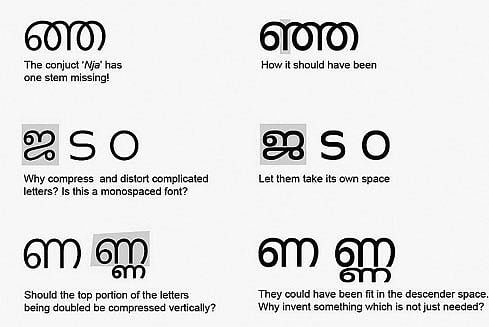
Language designers not at all 'Font' of 'Distorted' nirmala
Malayalam computing enthusiasts were upbeat when Nirmala, a new font, was announced with the Windows 8 OS. Users of the language expected it to be better than its predecessor Karthika, which many felt was unaesthetic.
But unfortunately, what they got was  a ‘distorted font’, which according to a designer, did not even “abide by the basic typographic rules”. One conjuct even has a missing stem. Some words written using the font therefore appear compressed and distorted. Nirmala is the default Malayalam font in the Operating System as Times New Roman for English.
If any document using the font gets printed, it can be misleading, especially for those who are not too much acquainted with the language.  “Besides, if it gets into books or any other such valuable documents, people would just absorb it even without realising the grave mistake,” said P M Hashim, Font designer, Design Difference.
He said that some of the Malayalam words were not shown as it is originally written. “Besides, many words have confusing stroke ending style. Also it has sub standard design quality. This sort of error happens when fonts are designed without consulting the experts,” he alleged.
“It happened when Karthika font was designed. It was unaesthetic and had unacceptable shapes. I have even pointed out the mistakes earlier too. But repeating similar mistakes shows that the matter was of least concern to them,” Hashim said.
“We have an online forum (http://typophile.com/) where we take up such issues. When I pointed it out, they were not even ready to acknowledge. They dismissed it saying that the missing stem was due to a bug which has already been fixed. They also ensured that they are also working with language experts to resolve additional issues with the fonts .